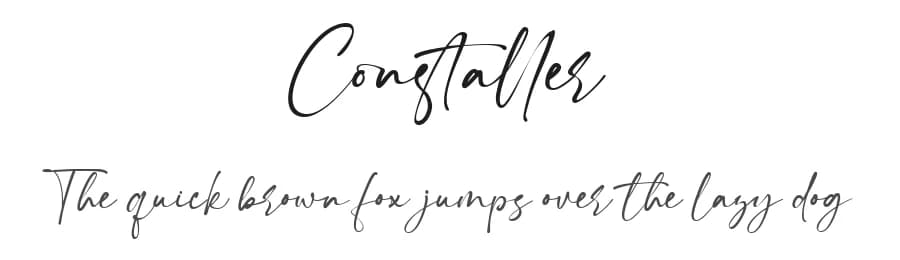
About Constaller Font
Arinttika is a natural and stylish signature font with a sense of elegant souls.
Constaller Specifications
| Font Family | Constaller |
| Full Name | Constaller Regular |
| Glyph Count | 222 glyphs |
| PostScript Name | Constaller-Regular |
| Designer | Eep Apringga | Toni Setiawan |
Constaller Font is a script font that shines as a display or heading face. Pair it with a clean sans-serif or serif font for body text β the contrast creates a clear hierarchy while the two styles stay balanced and easy to read.
Constaller Font